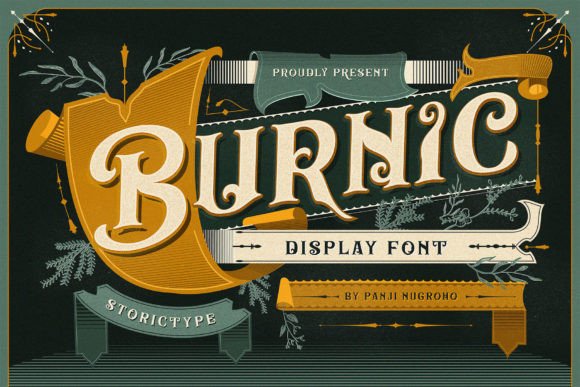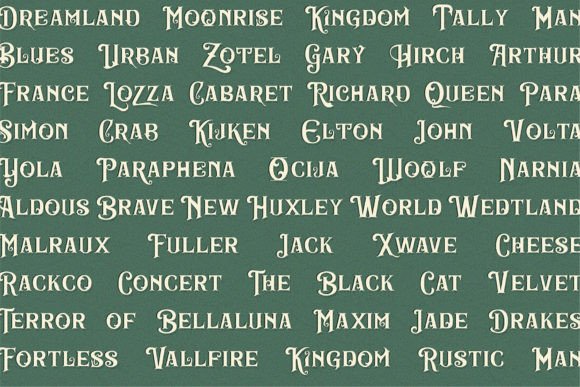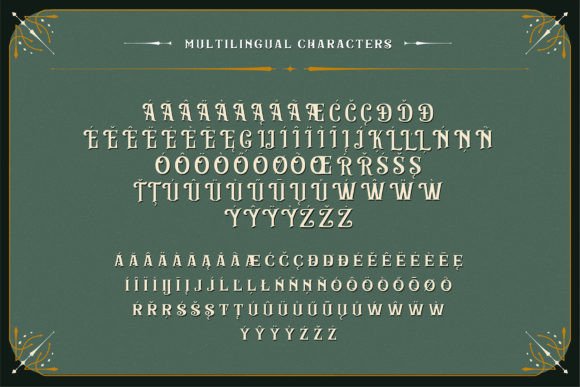
Burnic Font: Vintage Art Deco Display Typography for Logos
About the Burnic Font
Let us introduce you to Burnic Font, where timeless design meets modern craftsmanship. Introducing a vintage classic display typeface called Burnic. Burnic Typeface is inspired by antique, mixed victorian, and art deco periods with decorative shapes.
Those all will make you work easily to create: Posters, Logos, Print, Quotes, Headers, Clothing, Labels, Packaging, etc.
Burnic’s bold, Art Deco-inspired forms excel in display settings such as logos, posters, and headlines. Its decorative elements make it ideal for packaging and branding projects requiring a vintage yet sophisticated feel. However, its intricate details make it less suitable for body text or UI elements where legibility at smaller sizes is crucial.
Consider pairing Burnic with a clean sans-serif like Futura for a modern contrast, or a classic serif like Garamond for a more traditional feel. A playful script font could also add a touch of vintage charm, depending on the desired effect.
Burnic projects a confident and slightly rebellious personality, best suited to brands conveying heritage, luxury, or a touch of vintage-inspired edginess. Avoid using it for projects requiring a minimalist or highly contemporary aesthetic.